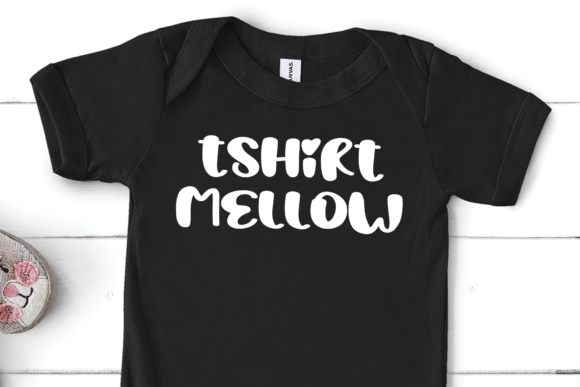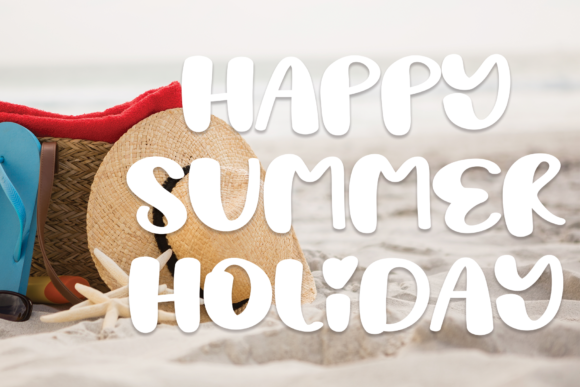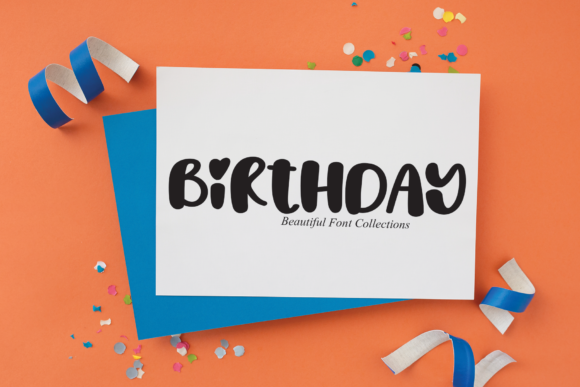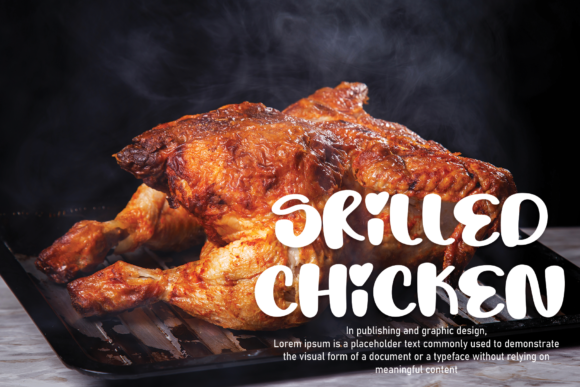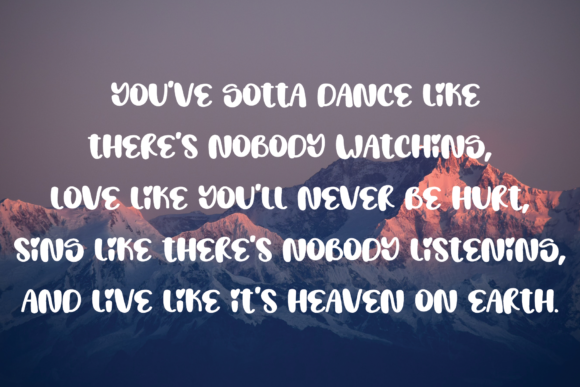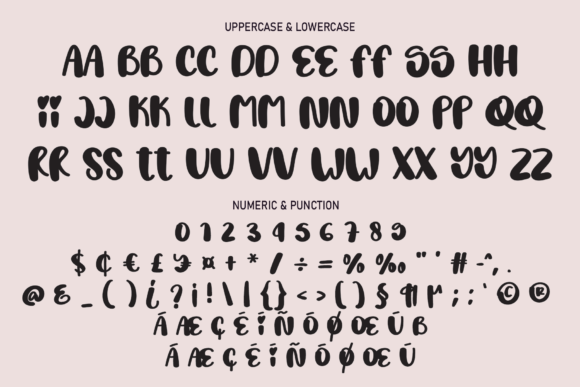
Get Ready to Kick Off the Weekend with the Perfect Font
There’s nothing quite like the feeling of sitting at your desk on a Friday morning, surrounded by blank pages and endless possibilities. The excitement of a new project is palpable, and the thought of bringing it to life is exhilarating. But what really gets the creative juices flowing is the right font – one that’s bold, playful, and impossible to ignore.
Enter the Friday Font, a chubby, thick font that’s designed to capture attention and spark imagination. Whether you’re working on branding, packaging, or any other project, this fun and creative font is the perfect addition to your design toolkit. With hearts for dots, the Friday Font is more than just a font – it’s a statement piece that’s sure to make your designs stand out from the crowd.
Friday Font Key Features
- Font Family: Friday Font is a sans-serif font family designed for digital use. It is available in 4 different weights (Regular, Light, Medium, Bold) and 2 different styles (Normal, Condensed).
- Unique Characteristics: Friday Font features a unique blend of modern and industrial design elements, with a focus on legibility and readability in digital environments.
Designer Review: Friday Font
As a designer, I was excited to dive into the world of Friday Font. I’ve always been a fan of fun, playful fonts, and Friday Font delivers on that front. ✨ The font’s quirky, modern aesthetic makes it perfect for anything from social media graphics to marketing materials.
- Uniquely designed characters that set it apart from other sans-serif fonts.
- Supports a wide range of languages, making it a versatile choice for global campaigns.
- Works well in digital formats, ensuring it looks great on screens.
However, there are a few areas where Friday Font falls short. ⚠️ While it’s great for digital use, the font can look a bit too busy when used in print materials, making it difficult to read at larger sizes.
Overall, I think Friday Font is a solid addition to any designer’s toolkit. While it may have some limitations, its unique style and versatility make it a great choice for a wide range of projects.
Getting the Most Out of “Friday Font”
Here are some tips to get the most out of “Friday Font”:
- Use it in bold or italic styles to add emphasis to your text.
- Combine it with other fonts to create a unique and eye-catching design.
- Experiment with different font sizes to create visual interest.
“Friday Font” is commonly used in:
- Restaurant and cafe menus.
- Food-related advertising and marketing materials.